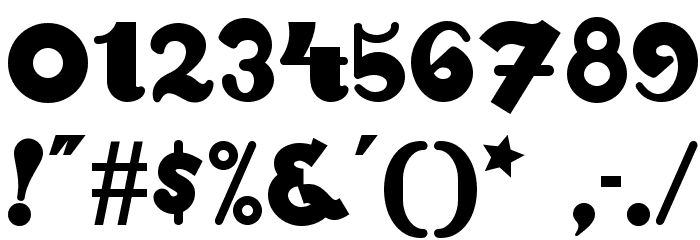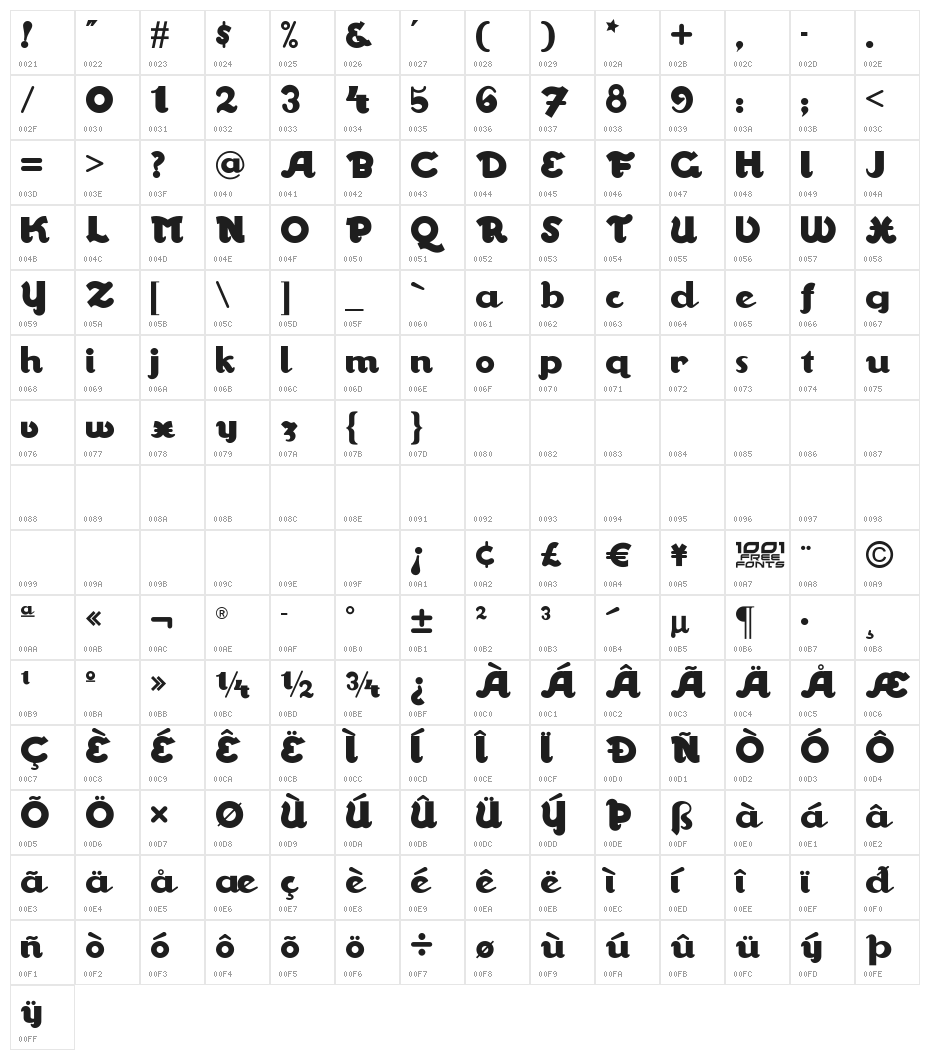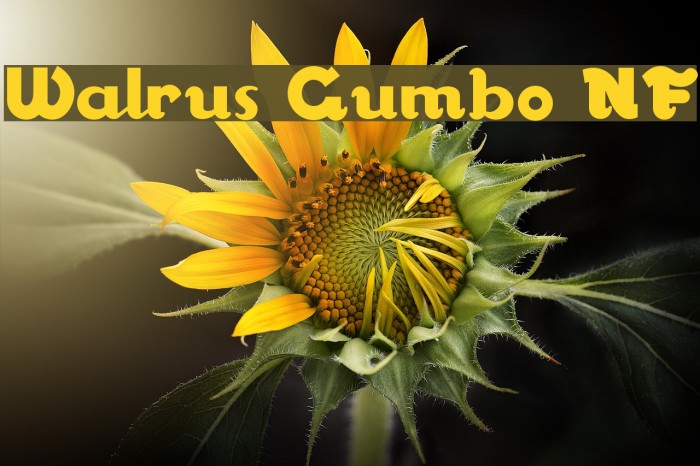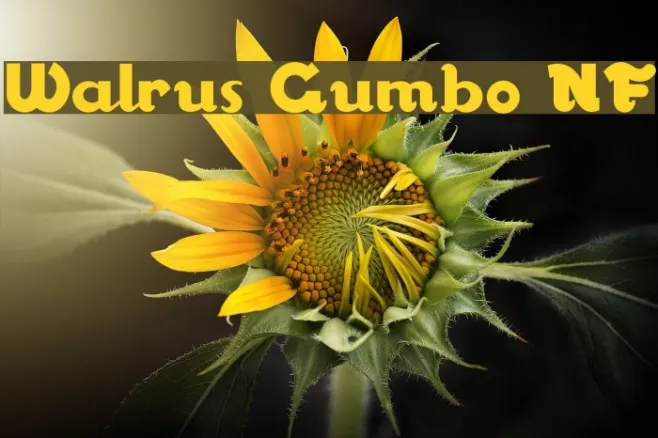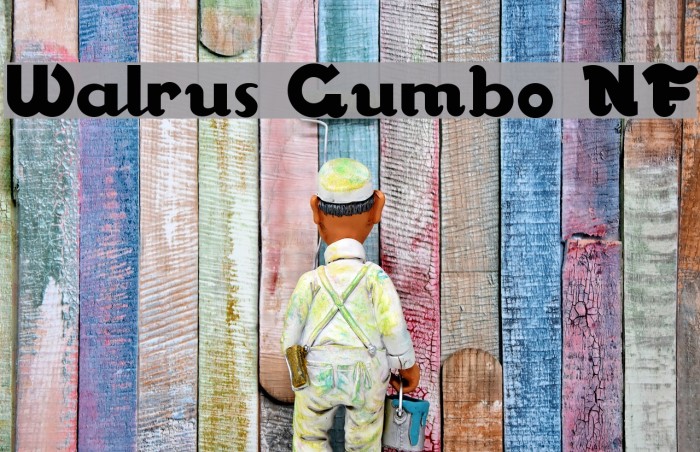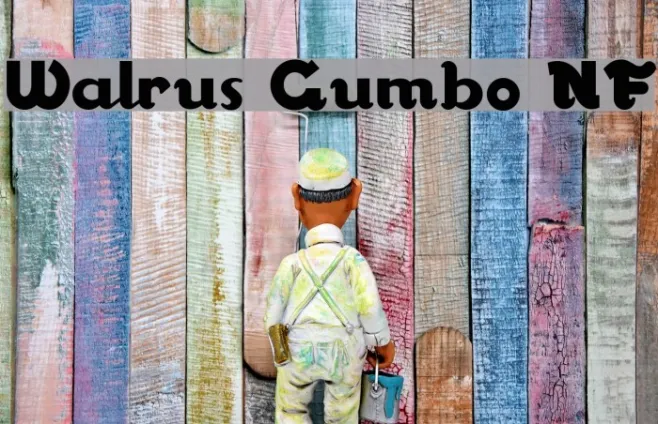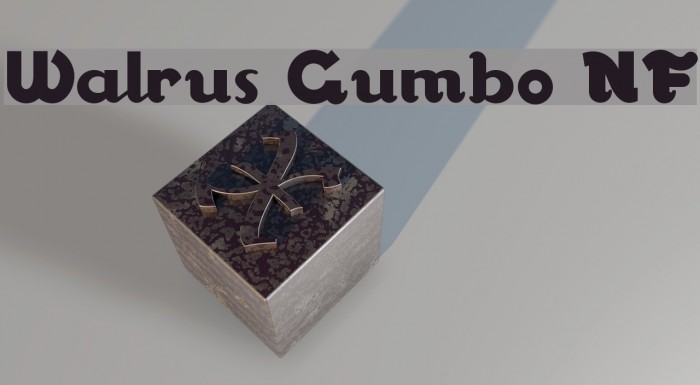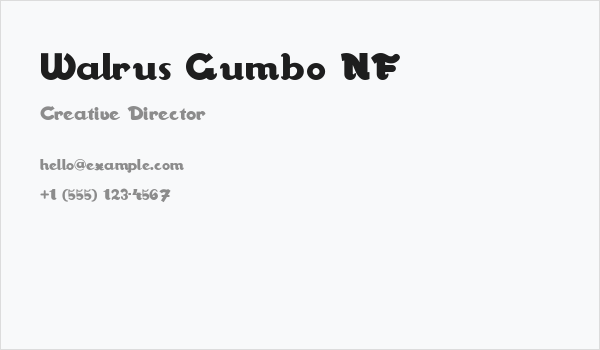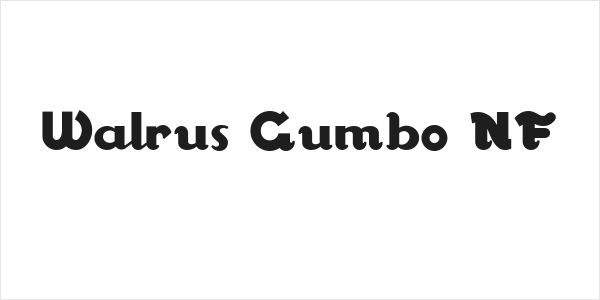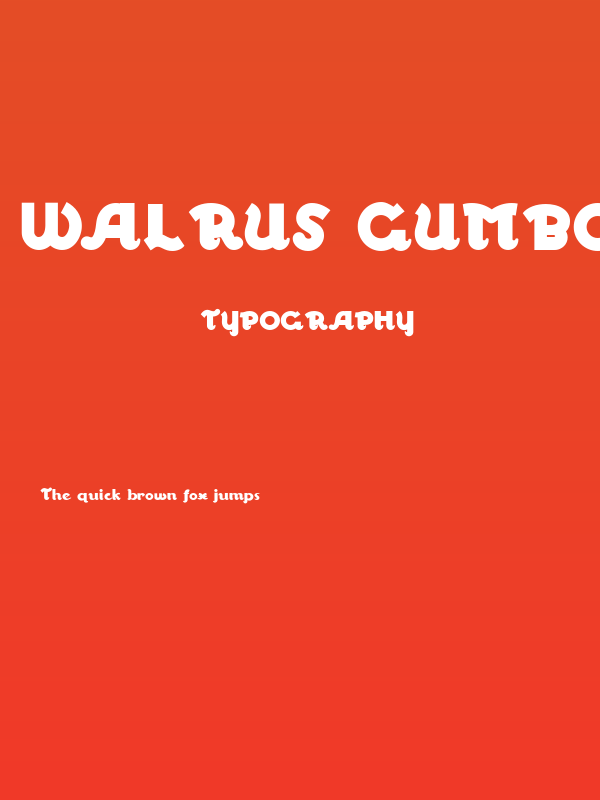
Walrus Gumbo NF Font
Walrus Gumbo NF Description
This font features a bold and playful design with a distinctively chunky and rounded appearance. The characters exhibit a whimsical style, with exaggerated curves and a strong presence. The uppercase letters are particularly robust, while the lowercase letters maintain a consistent flow. The numbers and special characters are equally bold, ensuring a cohesive look across all text. The font's unique style makes it stand out, perfect for projects that require a touch of fun and creativity.
| Proposed Projects | Ideal for children's books, playful branding, posters, and creative design projects. |